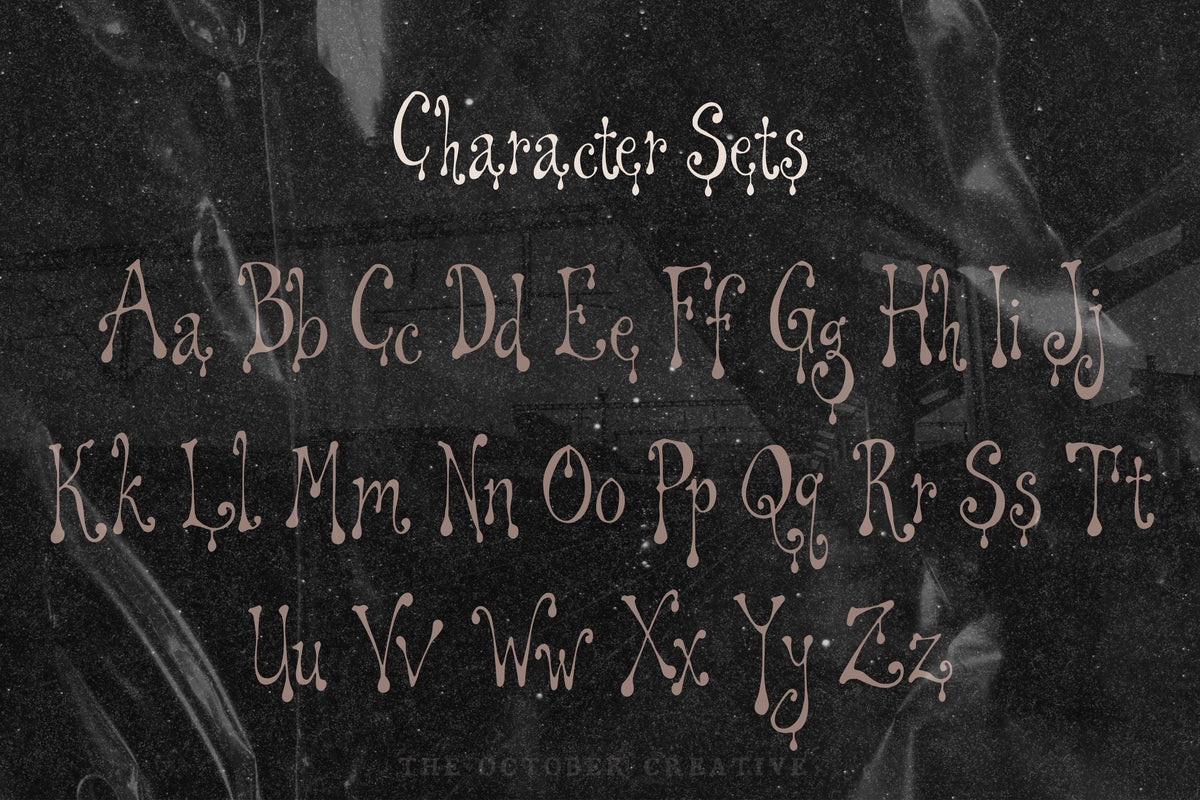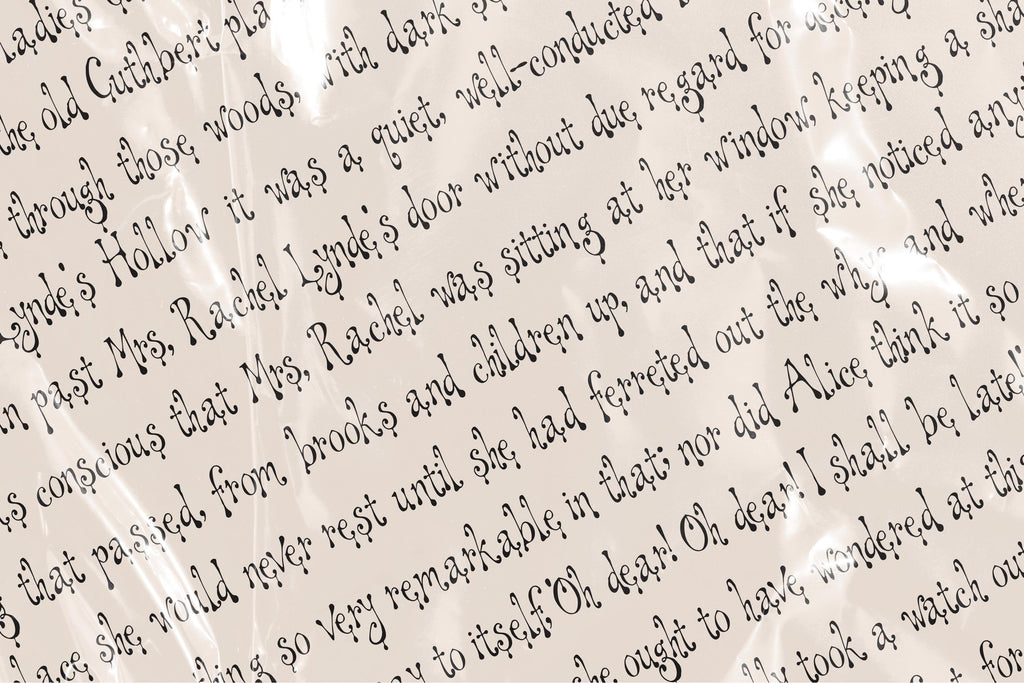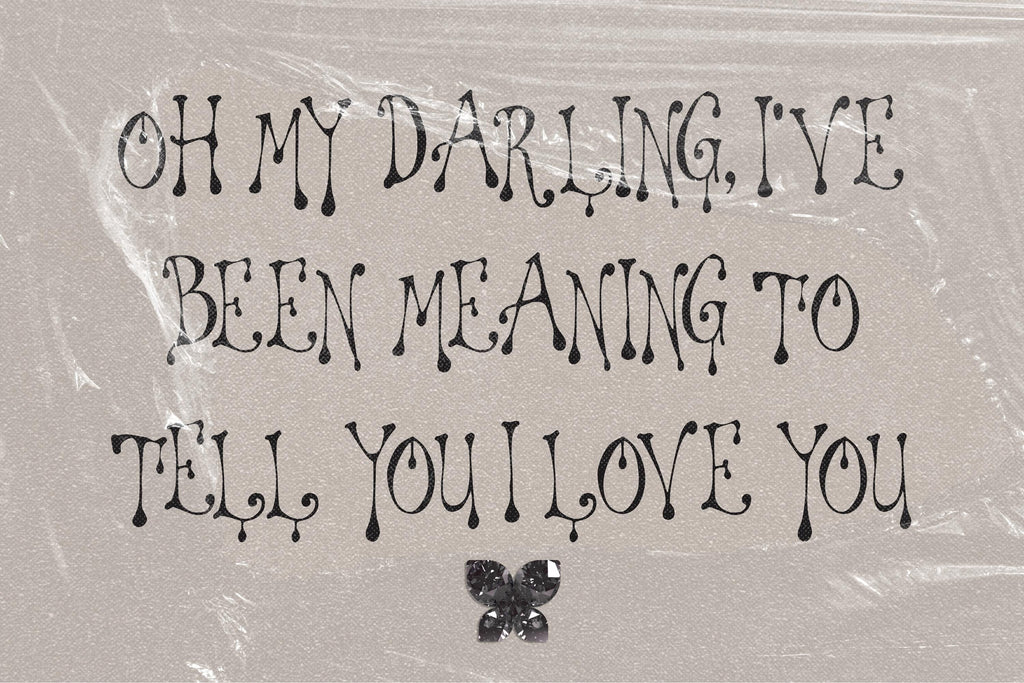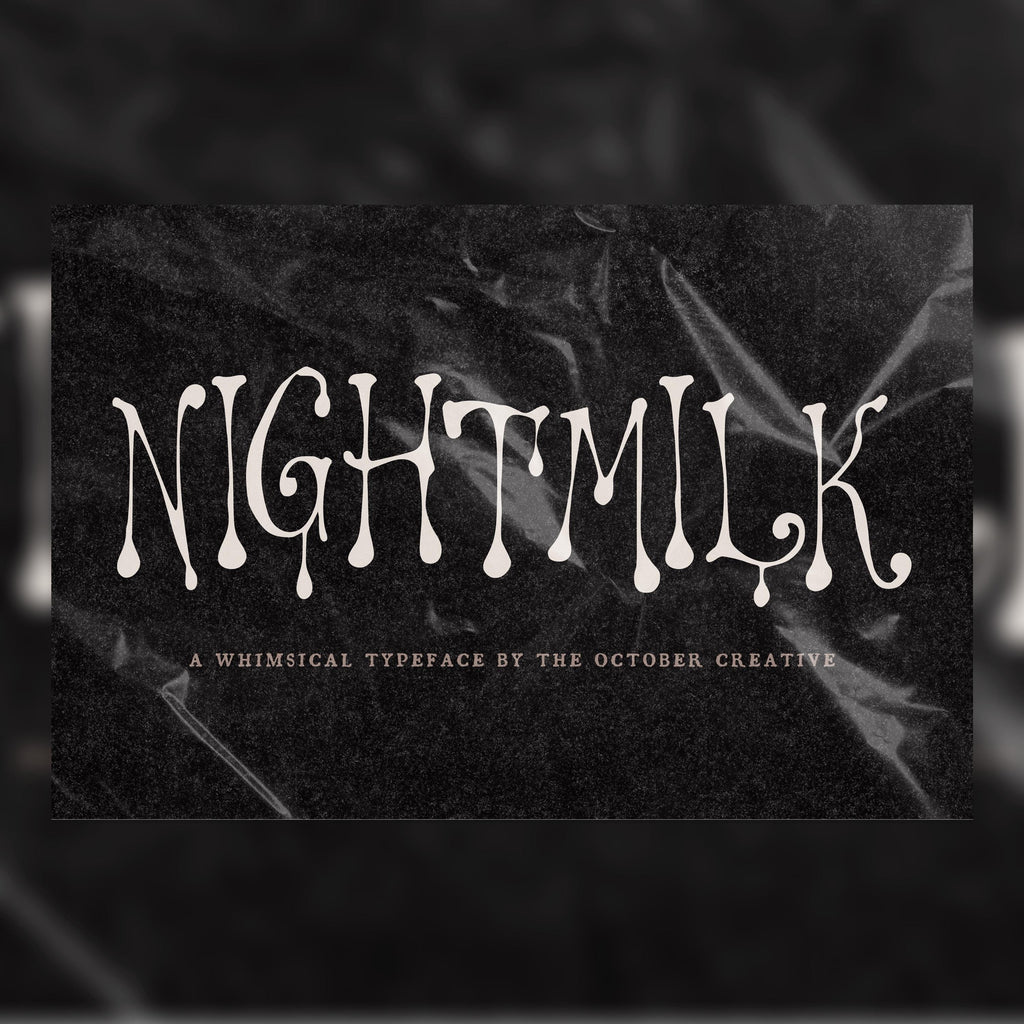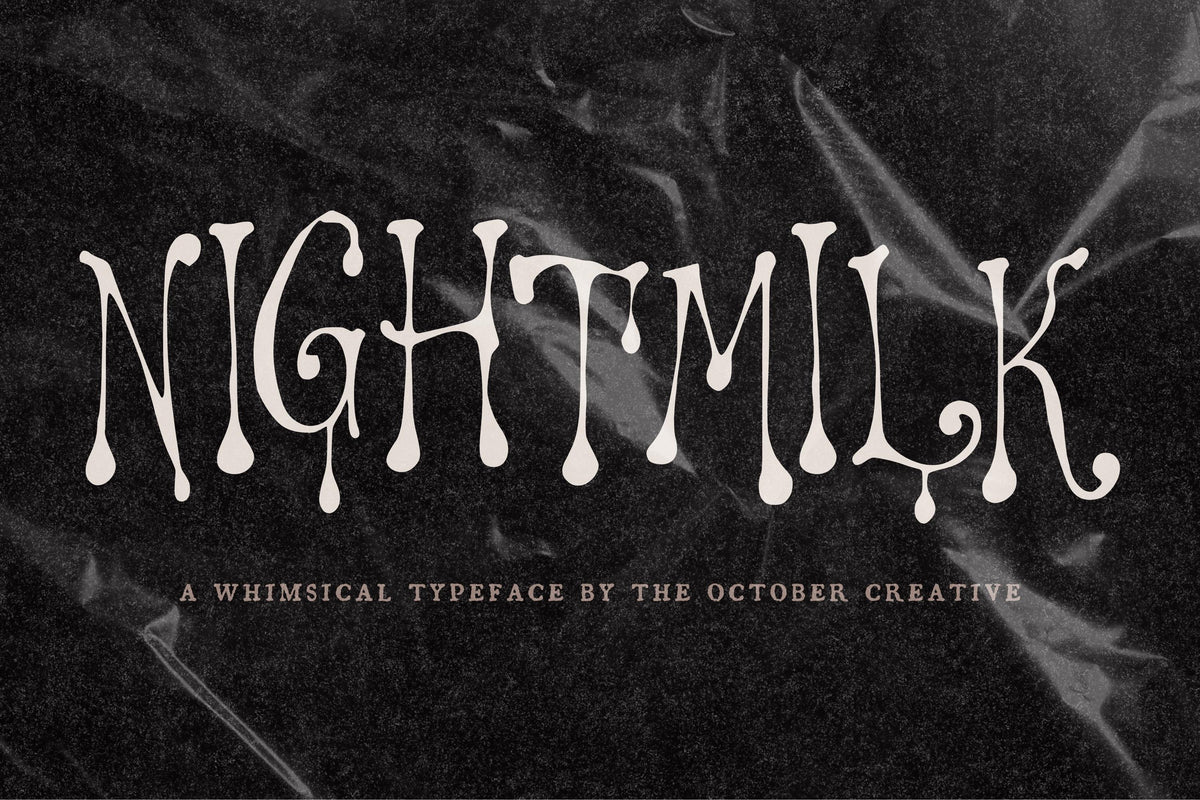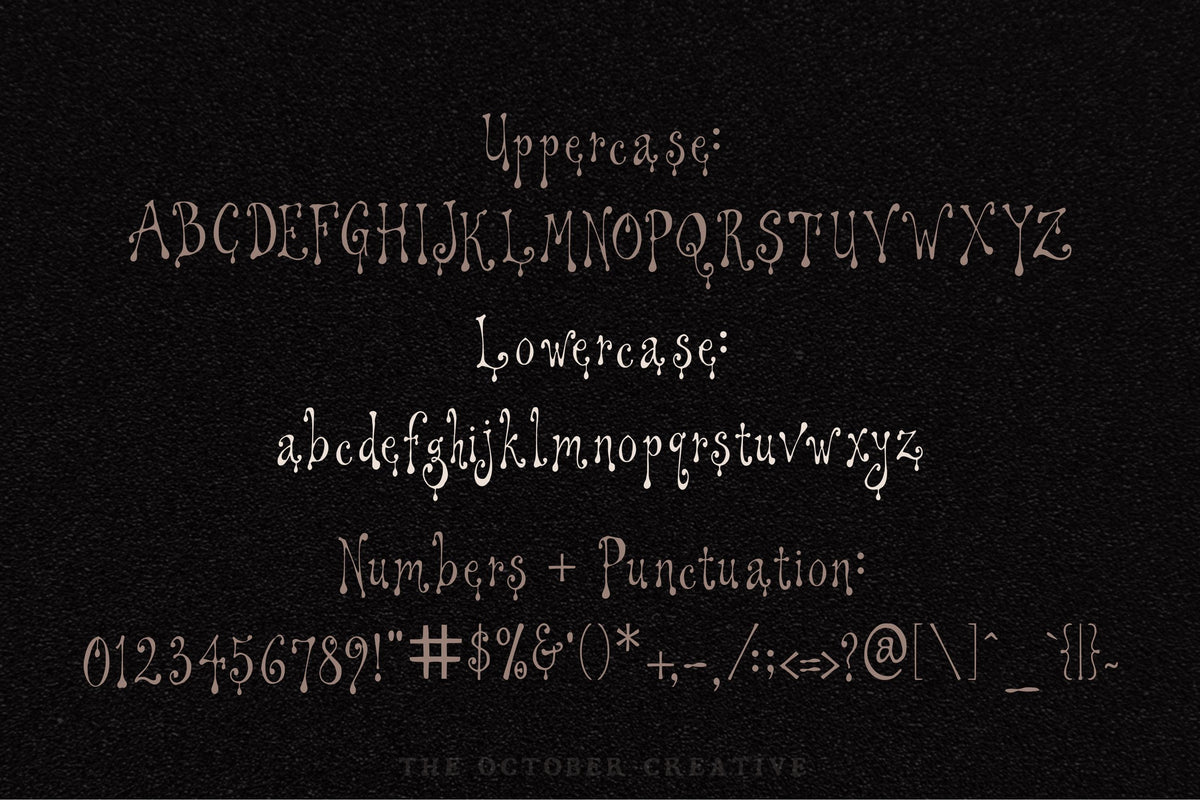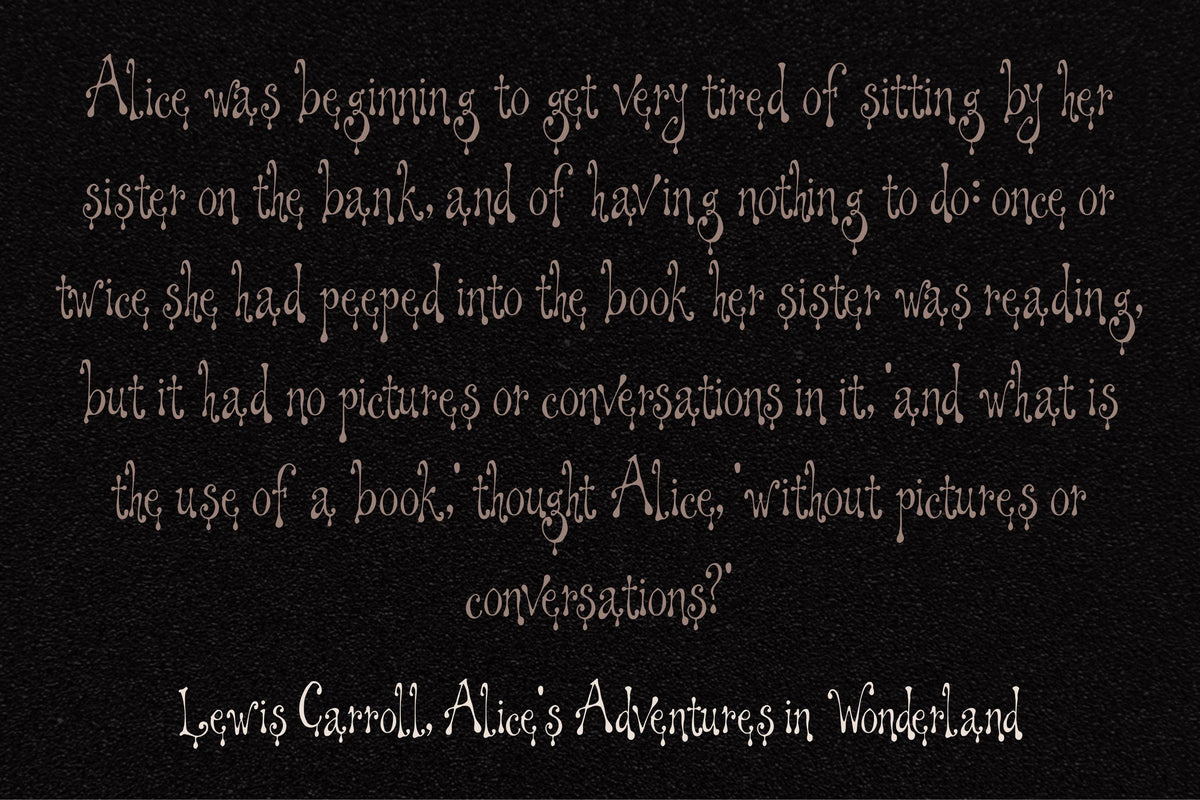
Nightmilk Font
Nightmilk lets its letters droop and melt into wonderfully odd shapes. Try it on moon-and-stars prints, dream journals, or an album-style poster when perfectly behaved lettering feels a little too sensible.